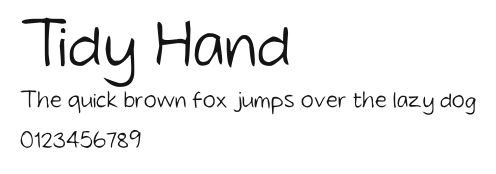
• Font Name: Tidy Hand
• Full Font Name: Tidy Hand
• Designer: Sean Johnson
About Tidy Hand.ttf
Tidy Hand.ttf is a modern, elegant sans-serif font designed for ultimate readability and visual harmony. Perfect for branding, headlines, web design, and print materials.